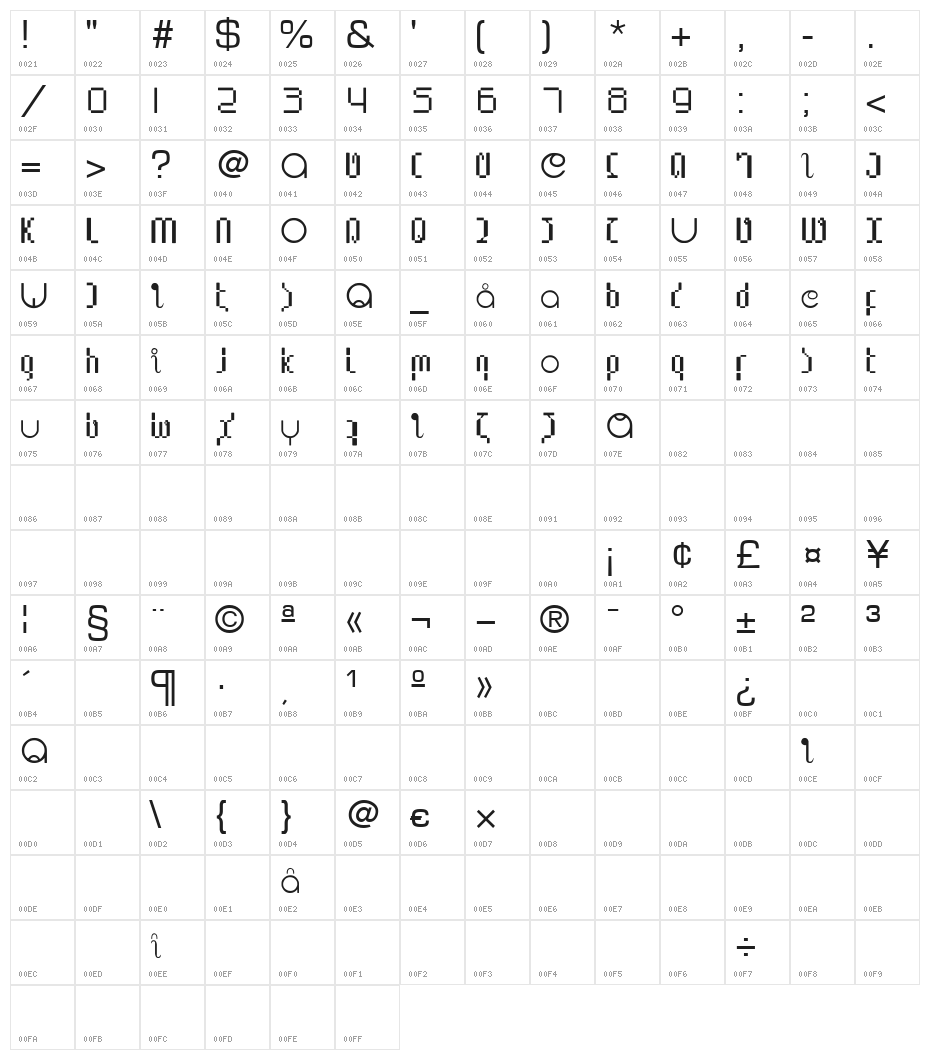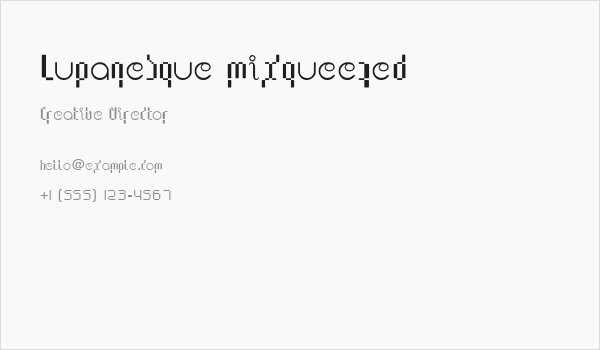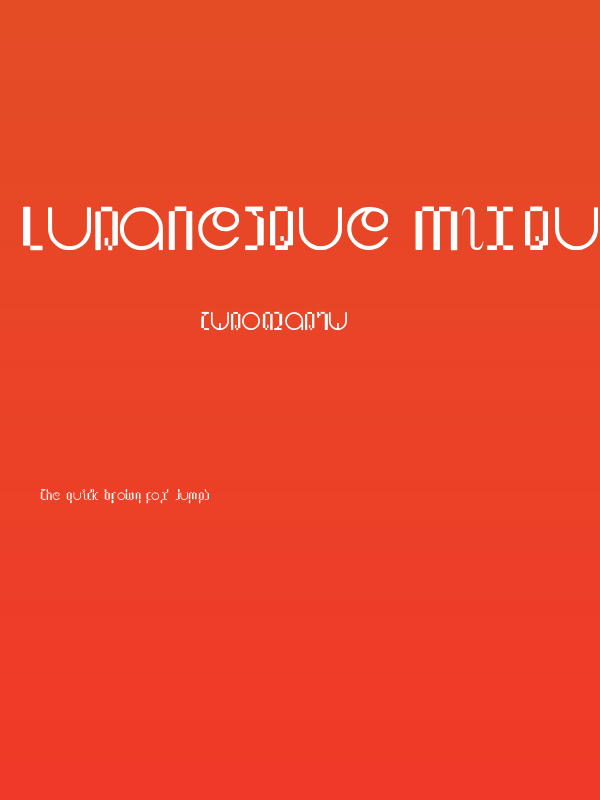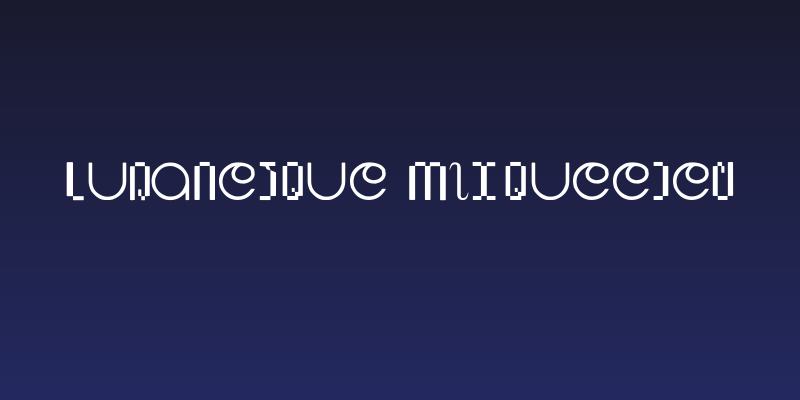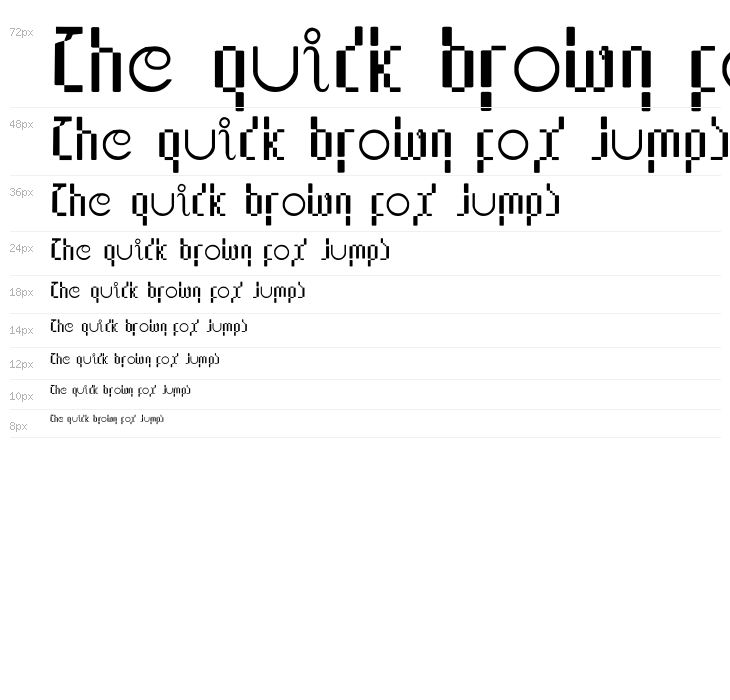
Lupanesque mixqueezed Font
This font features a unique blend of geometric and pixelated elements, creating a modern and digital aesthetic. The characters are composed of bold, block-like shapes with rounded edges, giving them a distinctive and futuristic look. The uppercase and lowercase letters maintain a consistent style, with some characters incorporating unexpected angles and curves that add to the font's quirky charm. The numerals and special characters follow the same design principles, ensuring uniformity across all elements. This font's playful yet structured appearance makes it suitable for creative and tech-oriented projects.
Proposed ProjectsIdeal for tech branding, digital art, video game design, and futuristic posters.